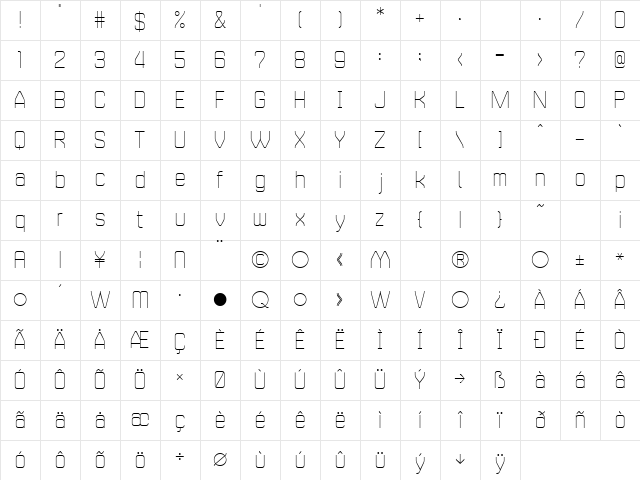
235MKSD UltraLightAl Free Font
235MKSD UltraLightAl
Style: UltraLightAl
Design Context for 235MKSD
235MKSD is a composed and adaptable typeface that performs quietly and consistently across a wide range of design contexts. Its slender proportions lend an understated elegance to any composition.